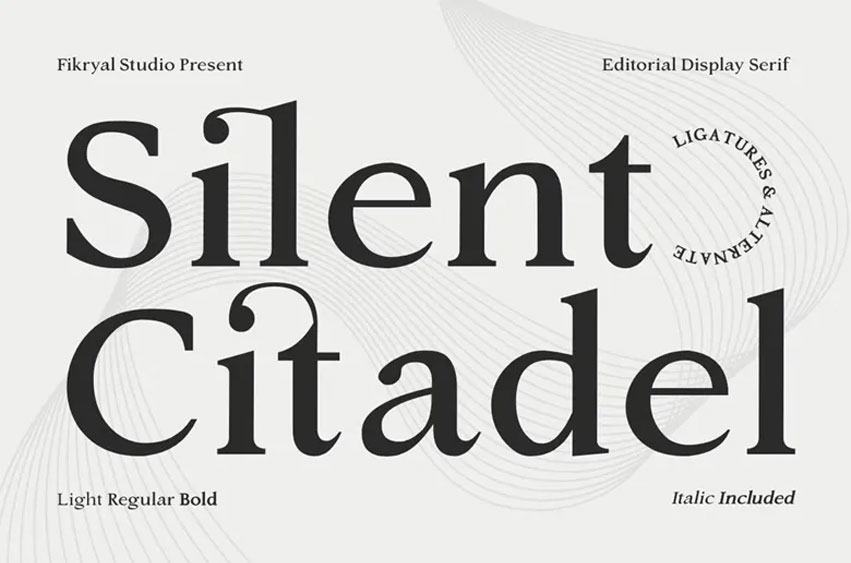
Silent Citadel Font
Silent Citadel Font is a sophisticated editorial exhibition serif typeface that gives the impression of power, beauty and ancient grace. The style was inspired by the silent power of classical architecture and the pomp of ancient strongholds, a combination of sharp serifs, elegant lines, and assertive proportions to create an assertive but refined visual identity.
Silent Citadel, designed as a high-impact typography, is ideal in the branding of luxury brands, editorial headlines, fashion campaign, premium packaging, and sophisticated logo design. The unique structure of its character harmonizes dramatic contrast, restrained detailing, and each word seems deliberate and elevated.